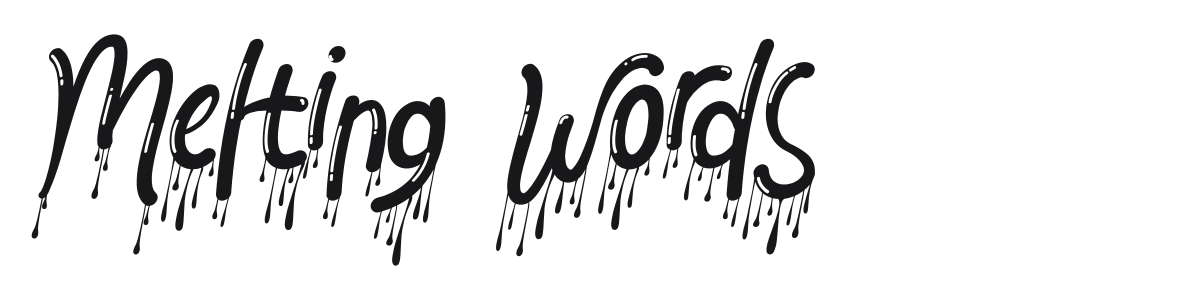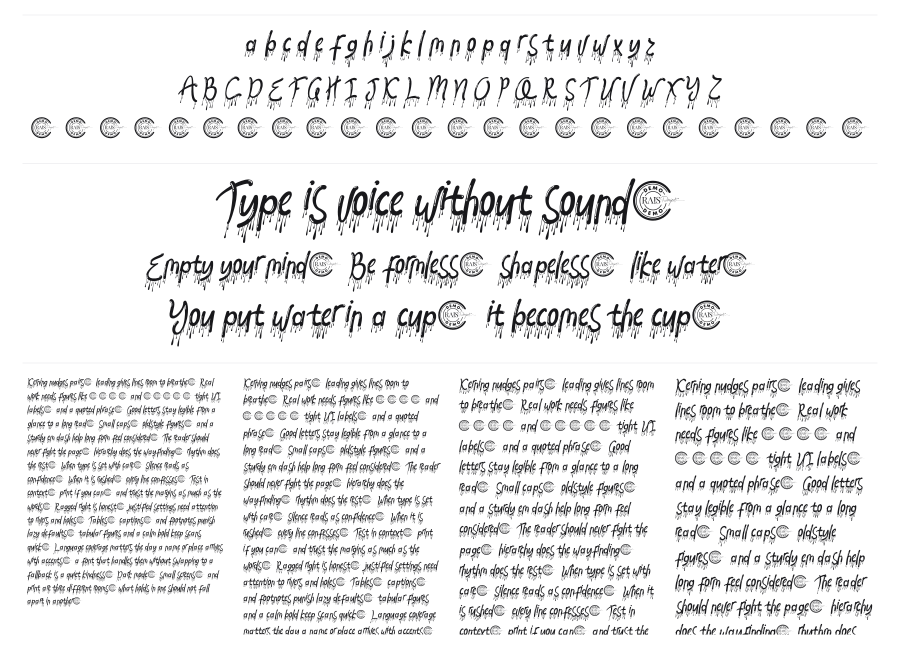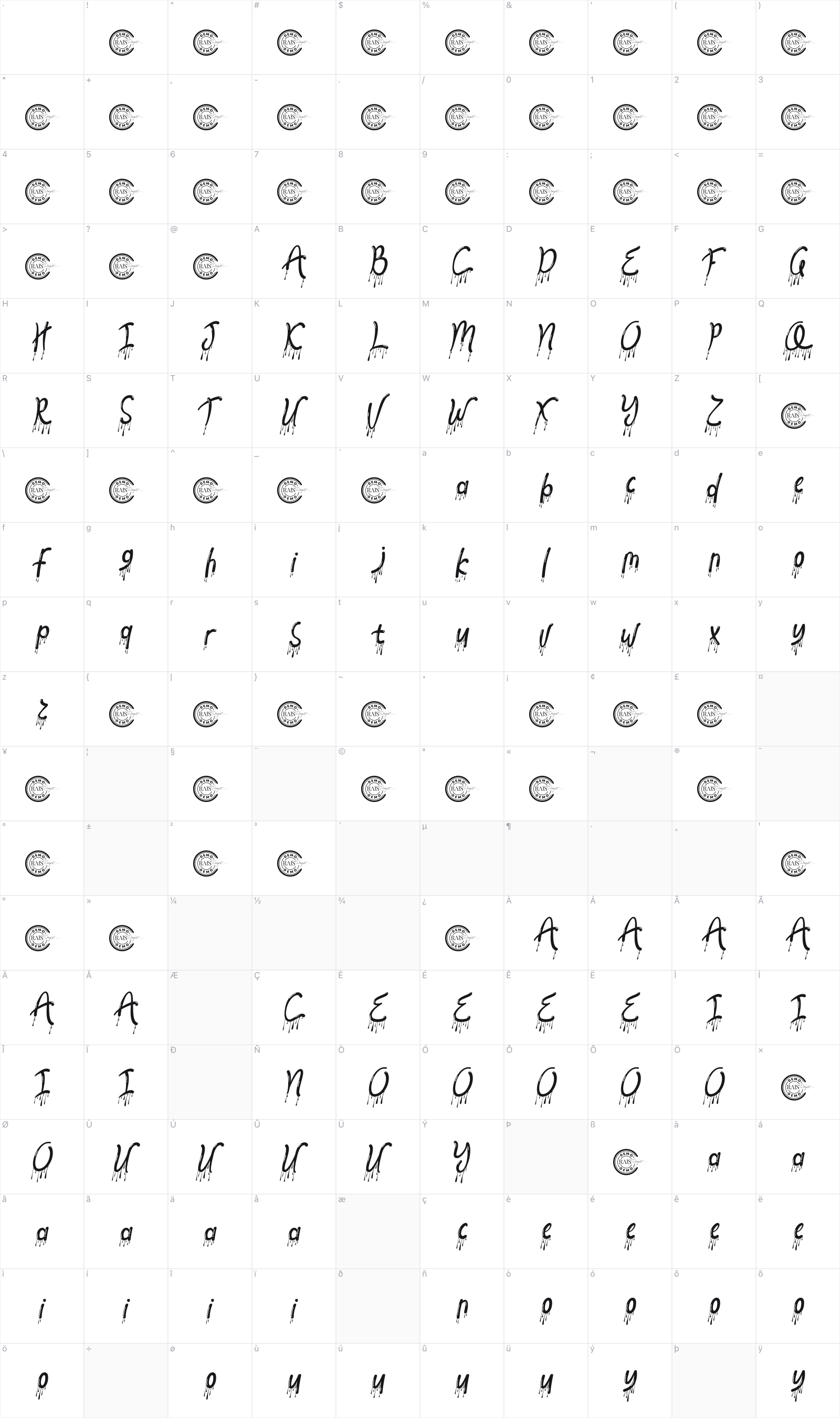
Melting Words
Melting Words is a bold graffiti-style display font where every character appears to drip with liquid paint or melting ink. The thick, slanted strokes carry a raw hand-drawn energy, somewhere between a horror movie title and a spray-painted wall. Great for streetwear graphics, band merch, posters, and anything that needs an edge.